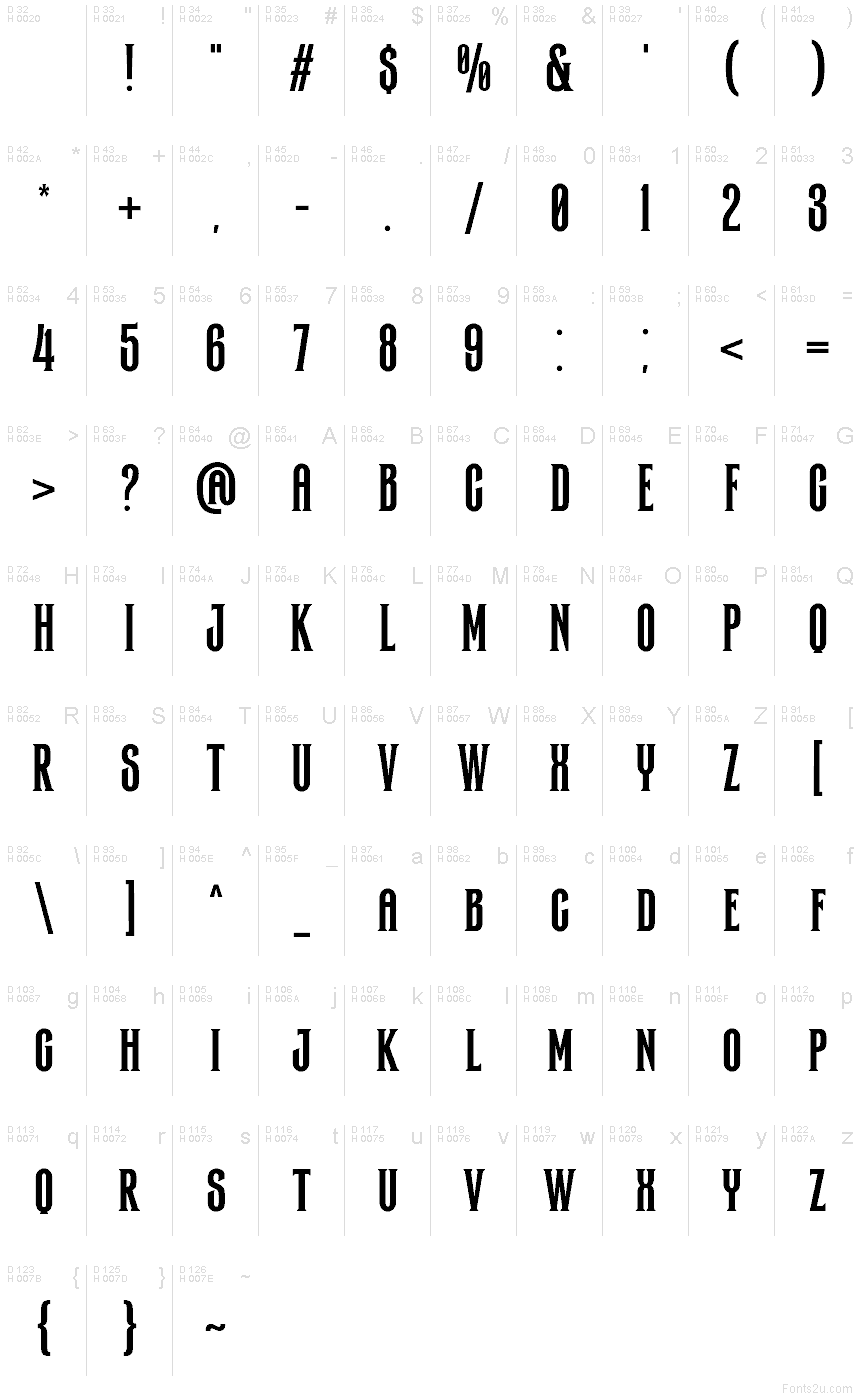
Power of Dragon Regular
Power of Dragon font from Alit Design evokes the rich visual culture of gothic narratives with a modern twist. This condensed font features ornamental influences, vertical emphasis, and dramatic presence for an imposing appearance. Its style beautifully oscillates between sophisticated elegance and impeccable readability.
Stylish headings for event invitations, youth apparel, comic book covers, album artwork designs, product labels, social media posts – each is a viable usage scenario for this free font. Give edge to product packaging or create attention-grabbing video titles with memorable letters that make their mark and turn heads!